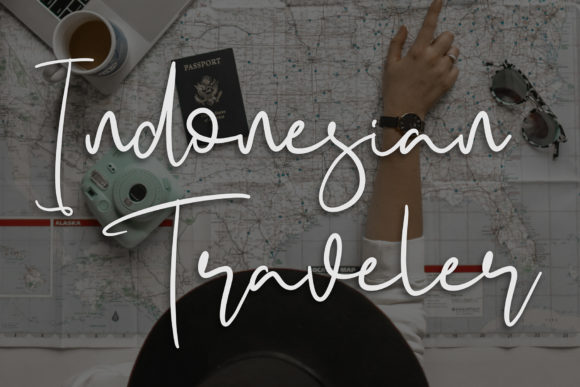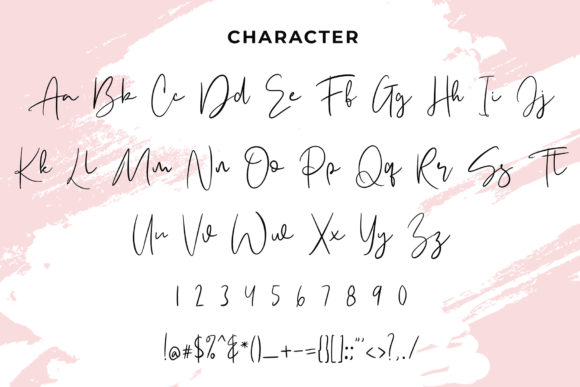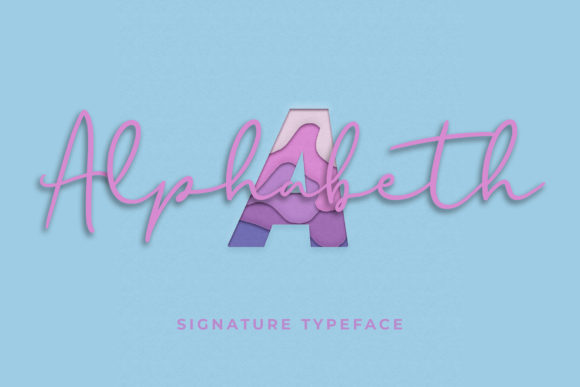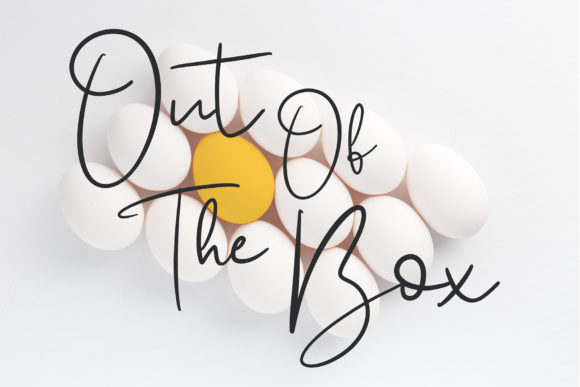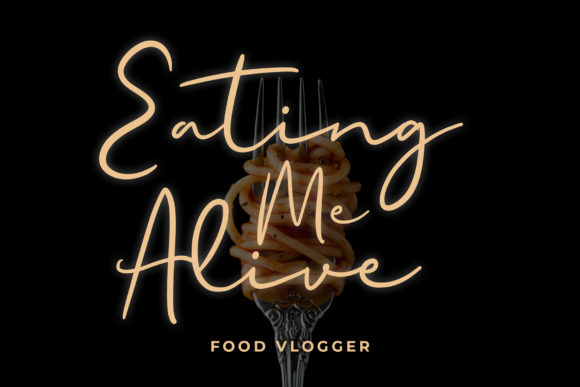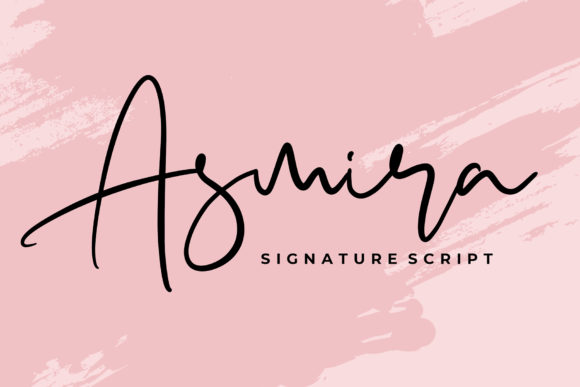
Introducing Asmira Font: The Perfect Blend of Class and Modernity
Are you tired of using the same old fonts in your design projects? Look no further than Asmira Font, a stunning handwritten font that is sure to become your new favorite. With its exquisite classy calligraphic influences and contemporary feel, Asmira is the perfect choice for designers and crafters looking to elevate their work to the highest levels.
The Story Behind Asmira Font
Asmira Font is a masterfully designed font that combines traditional calligraphic techniques with modern sensibilities. The result is a font that is both elegant and fresh, perfect for a wide range of design applications. Whether you’re working on a branding project, a wedding invitation, or a craft project, Asmira is sure to impress.
What Makes Asmira Font So Special?
So, what sets Asmira apart from other fonts on the market? Here are just a few of the features that make it so special:
- Classy Calligraphic Influences: Asmira’s roots in traditional calligraphy give it a level of sophistication and elegance that is hard to find in other fonts.
- Contemporary Feel: Despite its classic influences, Asmira has a distinctly modern feel that makes it perfect for contemporary design projects.
- Handwritten Charm: Asmira’s handwritten nature gives it a personal, organic feel that is sure to resonate with designers and crafters.
- Versatility: Asmira is a highly versatile font that can be used in a wide range of design applications, from branding and advertising to crafting and DIY projects.
How to Use Asmira Font in Your Design Projects
Asmira Font is incredibly easy to use, even for designers who are new to working with fonts. Here are a few tips for getting started:
- Pair it with Other Fonts: Asmira pairs beautifully with other fonts, making it easy to create stunning contrast and visual interest in your designs.
- Experiment with Sizes and Styles: Asmira looks great in a variety of sizes and styles, so don’t be afraid to experiment and find the look that works best for your project.
- Use it for Headlines and Titles: Asmira’s elegant, cursive script makes it perfect for headlines and titles, where it can add a touch of sophistication and glamour.
Why Designers and Crafters Love Asmira Font
Asmira Font has quickly become a favorite among designers and crafters, and it’s easy to see why. Here are just a few of the reasons why Asmira is so popular:
- Unique and Eye-Catching: Asmira’s unique blend of classic and modern elements makes it a standout in any design project.
- Easy to Read: Despite its elegant, cursive script, Asmira is incredibly easy to read, making it perfect for use in body text as well as headlines.
- Highly Versatile: Asmira can be used in a wide range of design applications, from digital projects to print materials.
In conclusion, Asmira Font is a truly exceptional font that is sure to become a favorite among designers and crafters. With its exquisite classy calligraphic influences, contemporary feel, and handwritten charm, Asmira is the perfect choice for anyone looking to elevate their design projects to the highest levels. So why wait? Fall in love with Asmira today and see the difference it can make in your work!